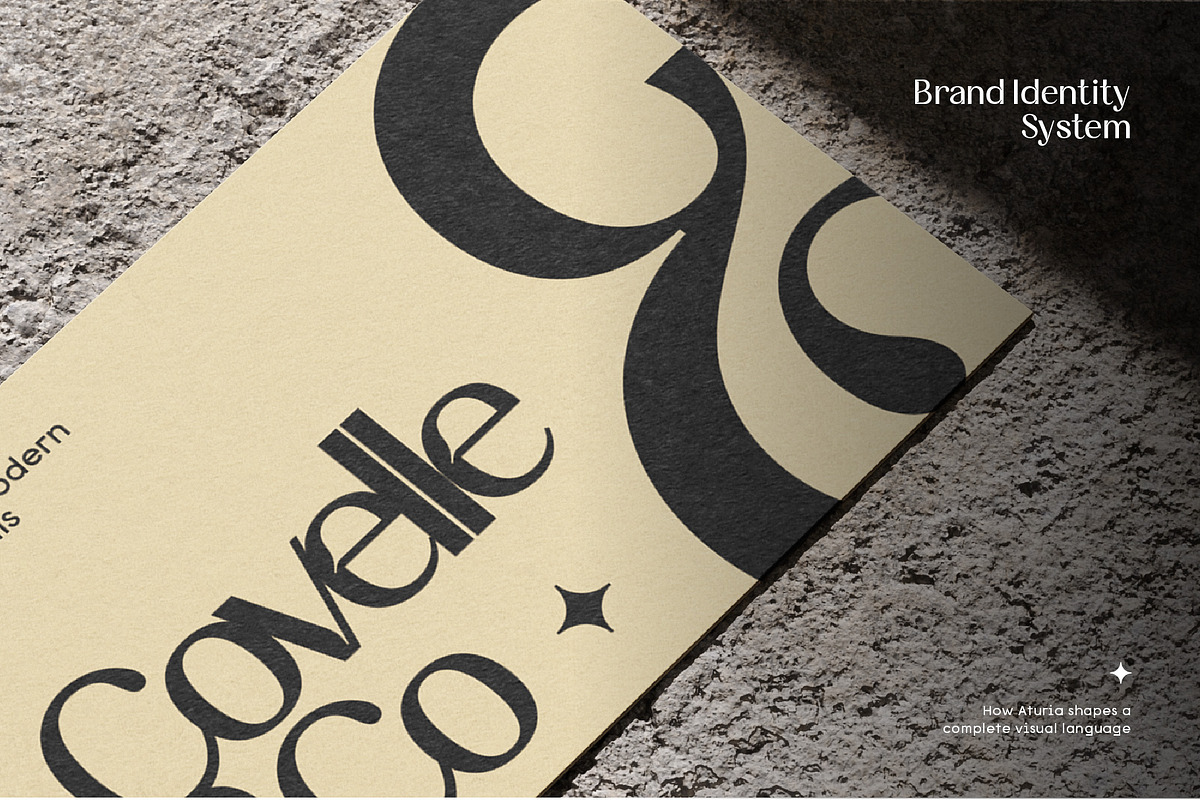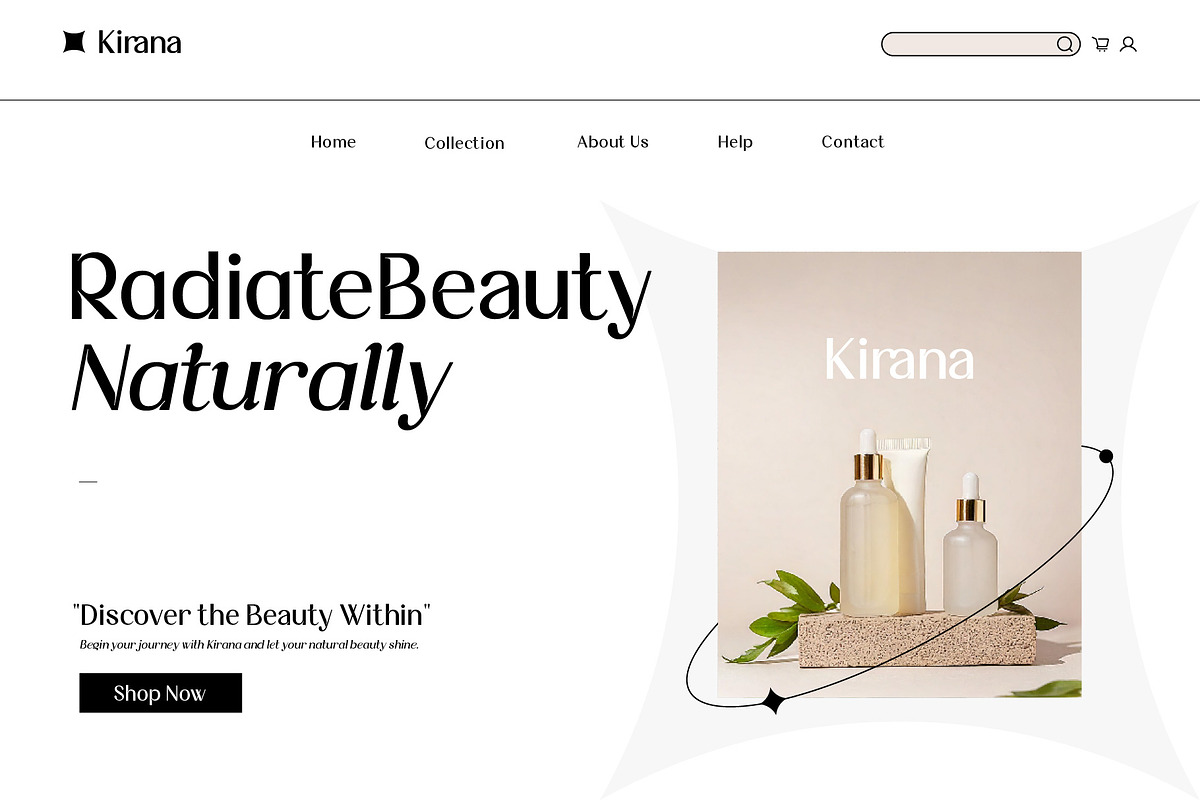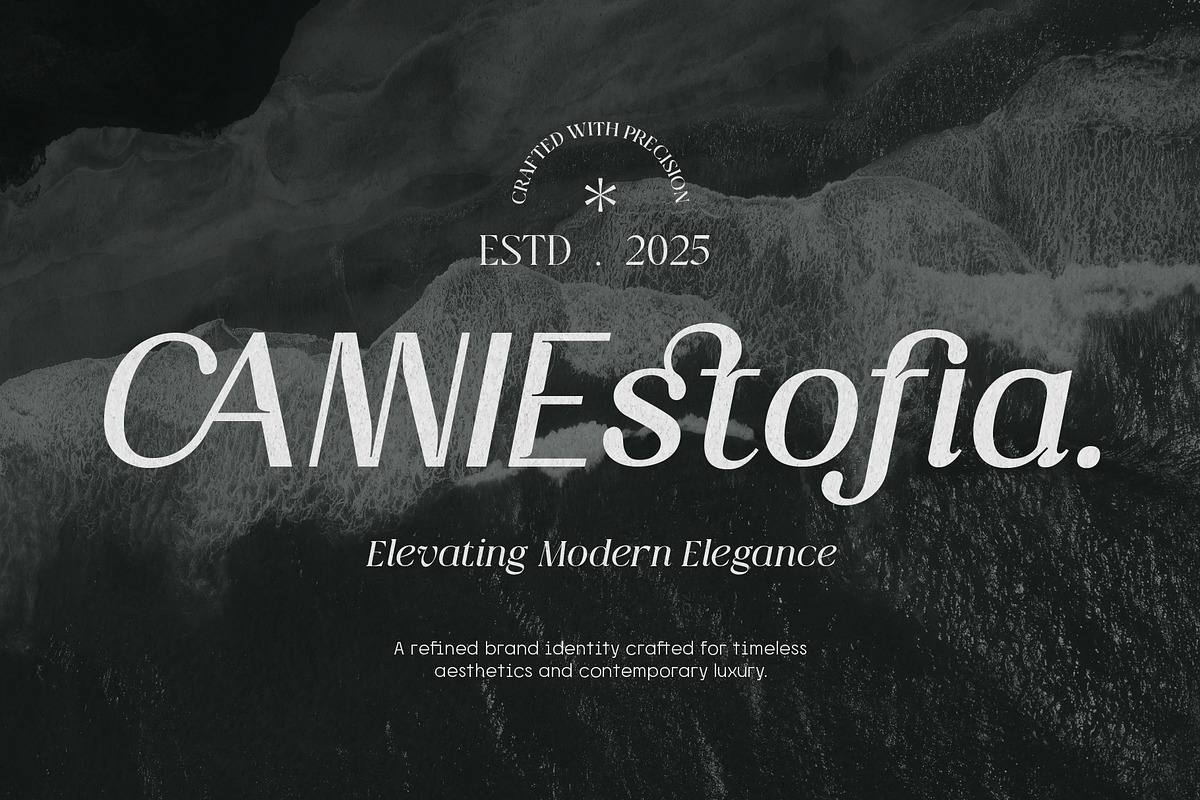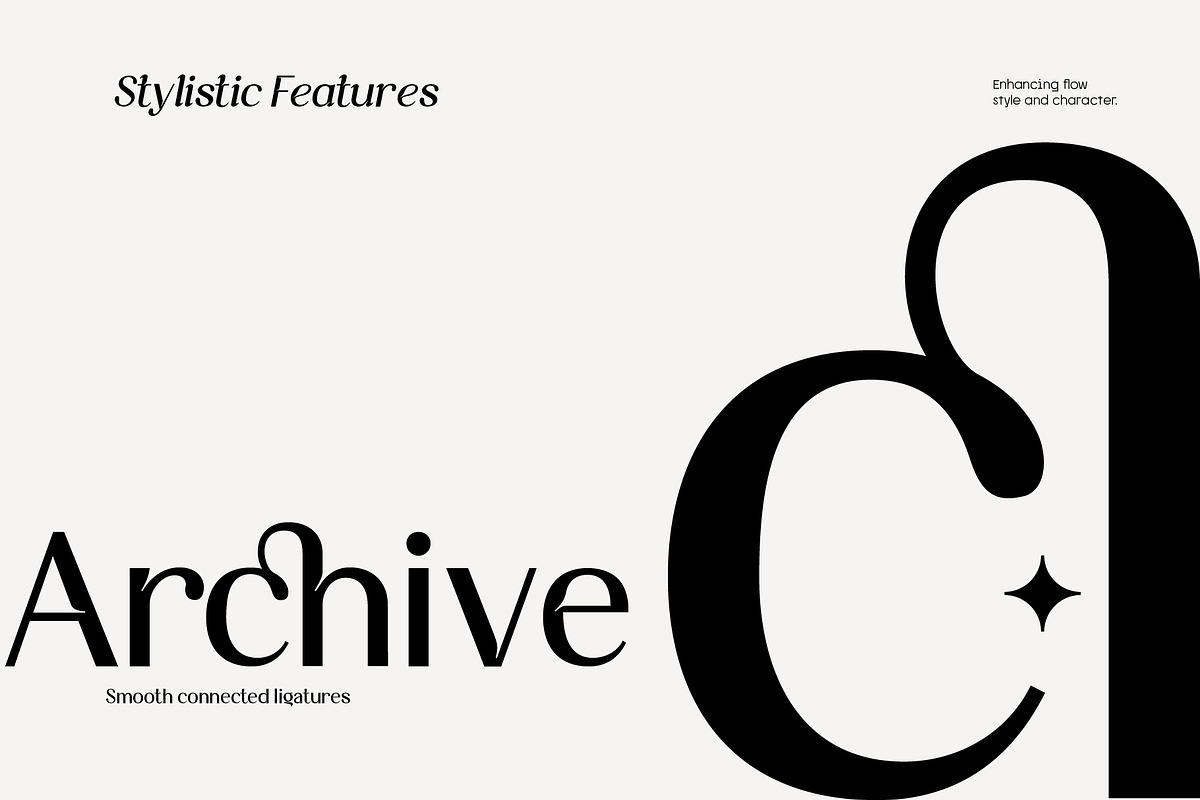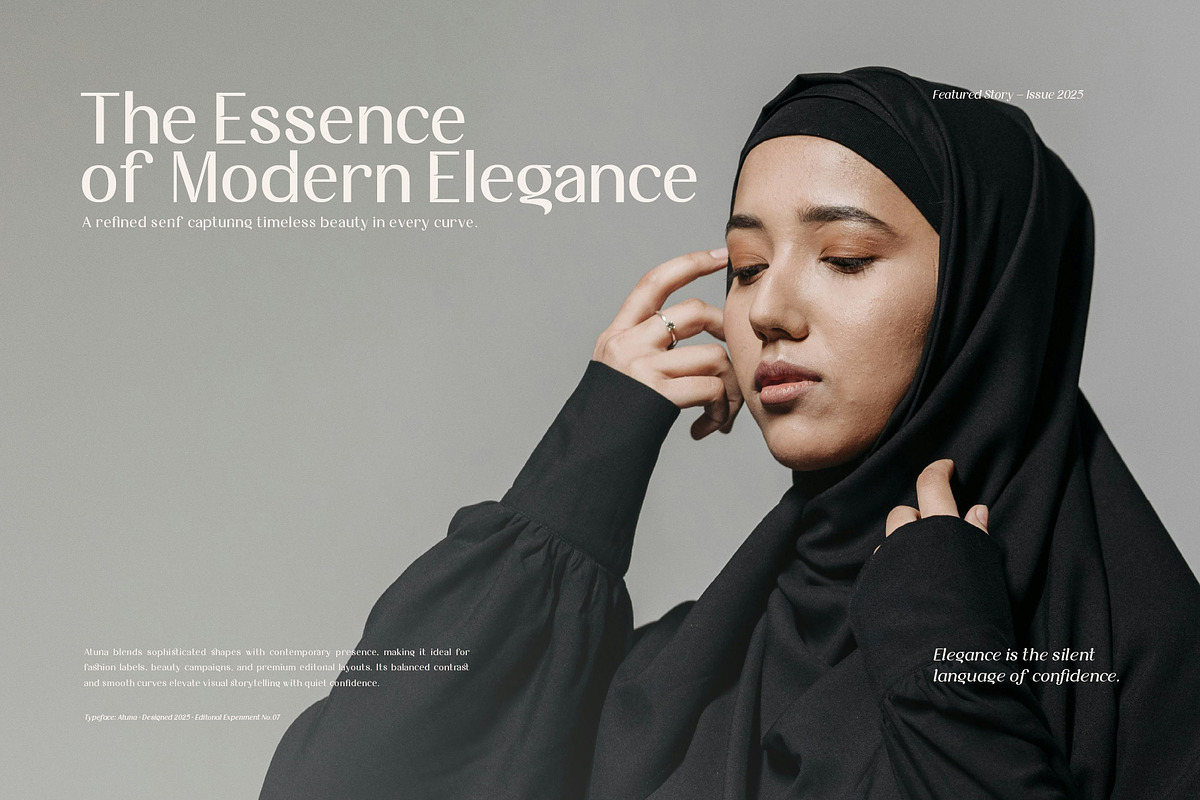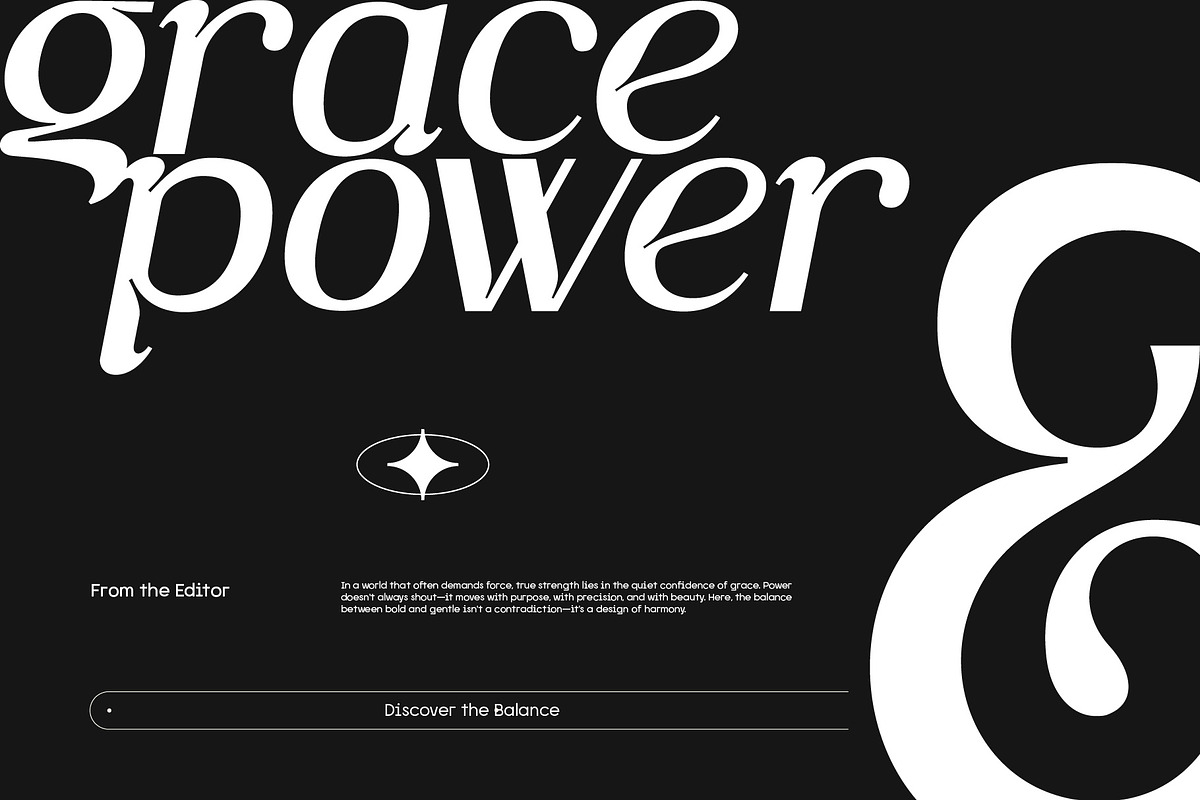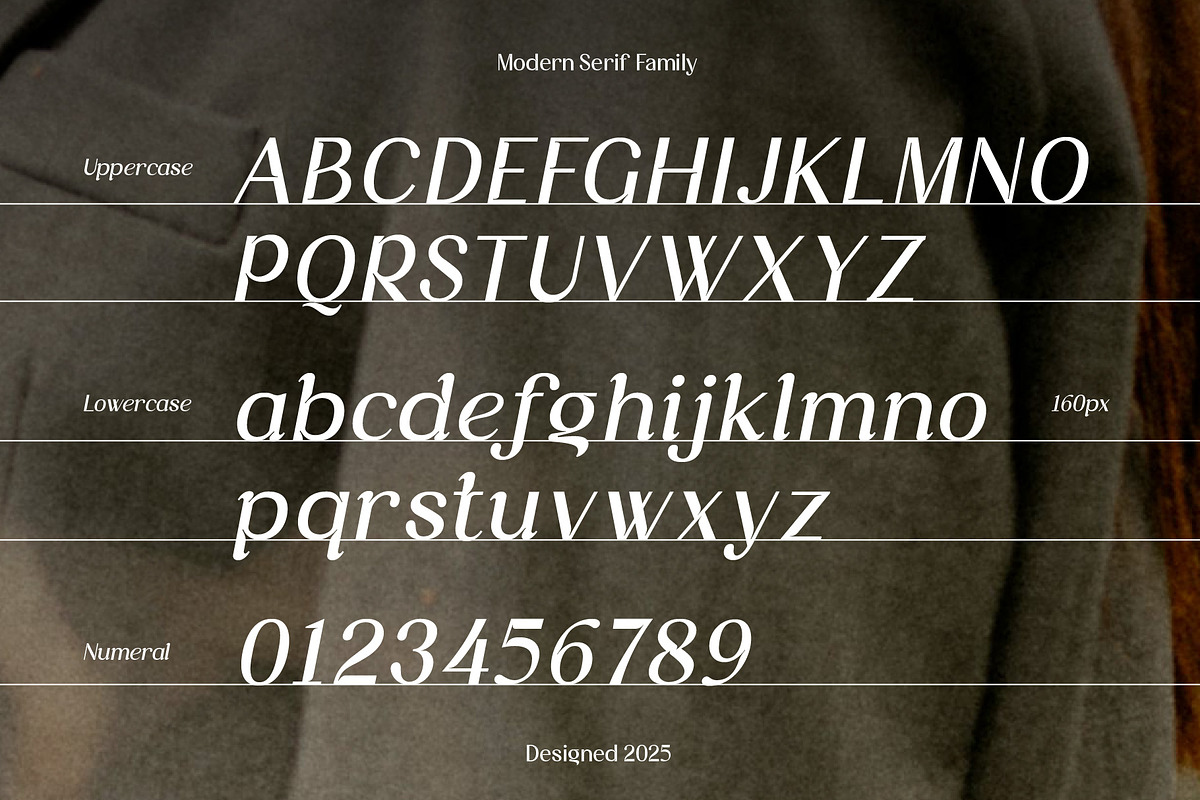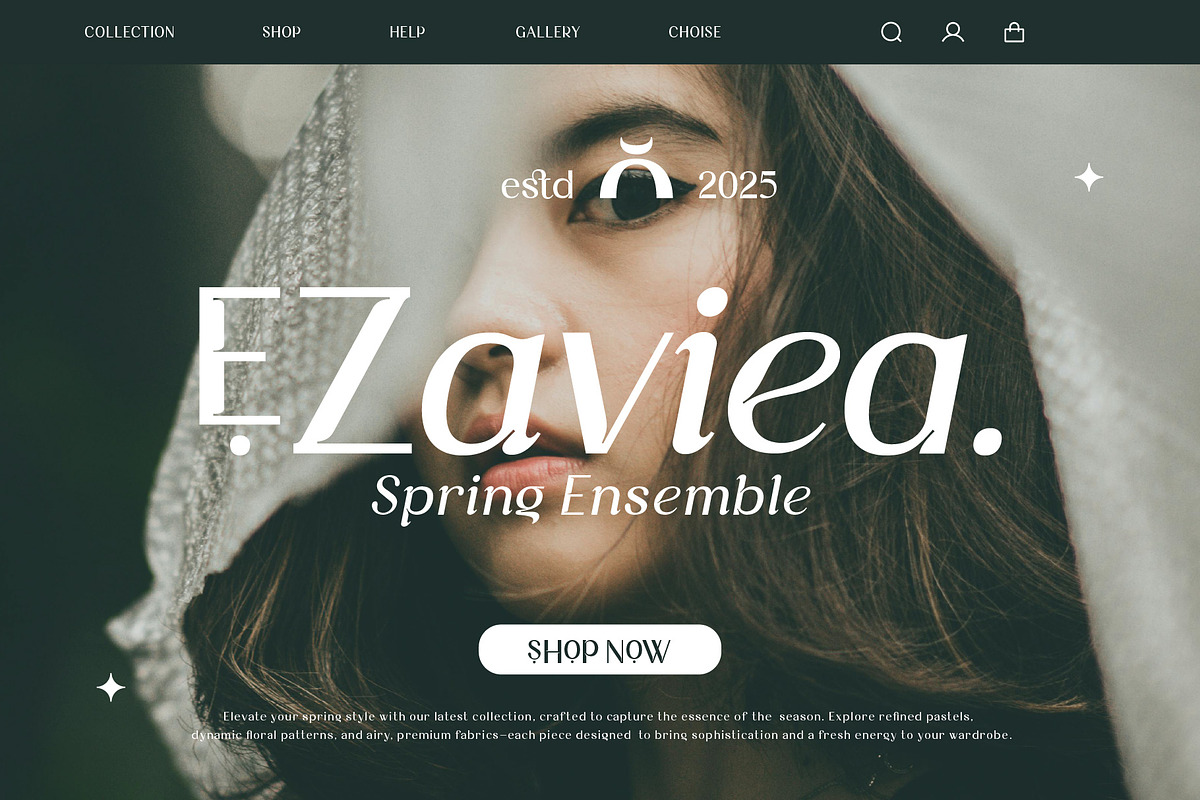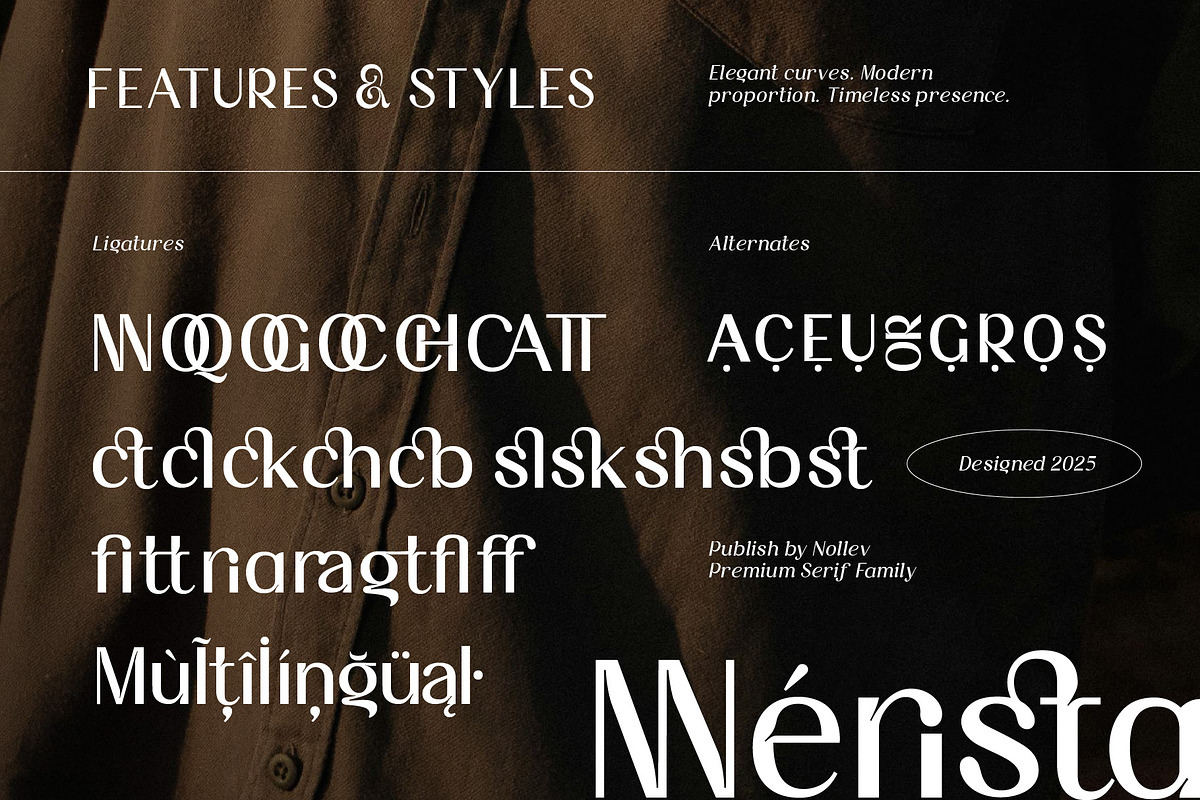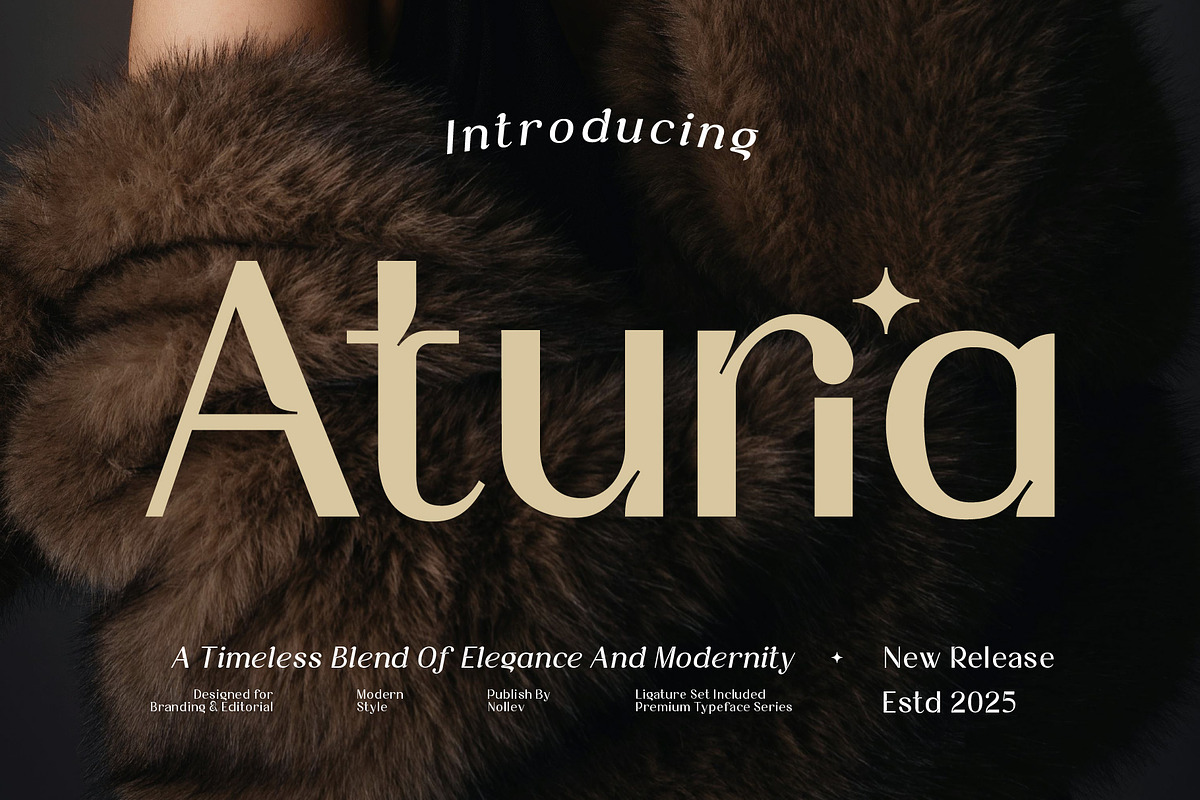
Aturia — High-contrast sans serif
Aturia is a modern display typeface featuring clean structure and expressive inner cuts, creating a bold and distinctive look. Perfect for logos, posters, packaging, and contemporary branding, Aturia adds strong visual personality to any design.
✨ Key Features:
- Modern and experimental display style
- Stylish letterforms with expressive details
- Ideal for logos, posters, editorial, and branding